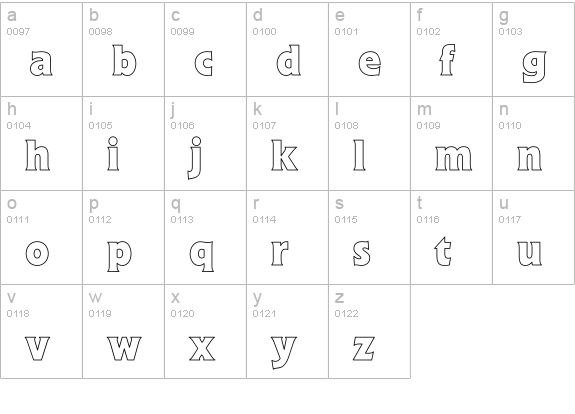
Stine Bold Hollow Font Details
Stine Bold Hollow is a strong, high-contrast variant in the Stine typeface family \xE2\x80\x94 well suited to headlines, attention-grabbing titles, and strong calls-to-action.
Stine Bold Hollow font is a modern and stylish typeface that exudes a sense of contemporary elegance. Its clean lines and bold strokes make it perfect for a wide range of design projects, from branding to editorial design. The hollow style adds a unique touch to the font, making it stand out and catch the eye. What sets Stine Bold Hollow font apart is not only its visual appeal but also its versatility. Whether you're working on a logo, poster, website, or any other design project, this font will add a touch of sophistication and modernity. The best part? Stine Bold Hollow font is available for free download at FontsMarket.com. So go ahead and elevate your designs with this stylish and eye-catching typeface today!